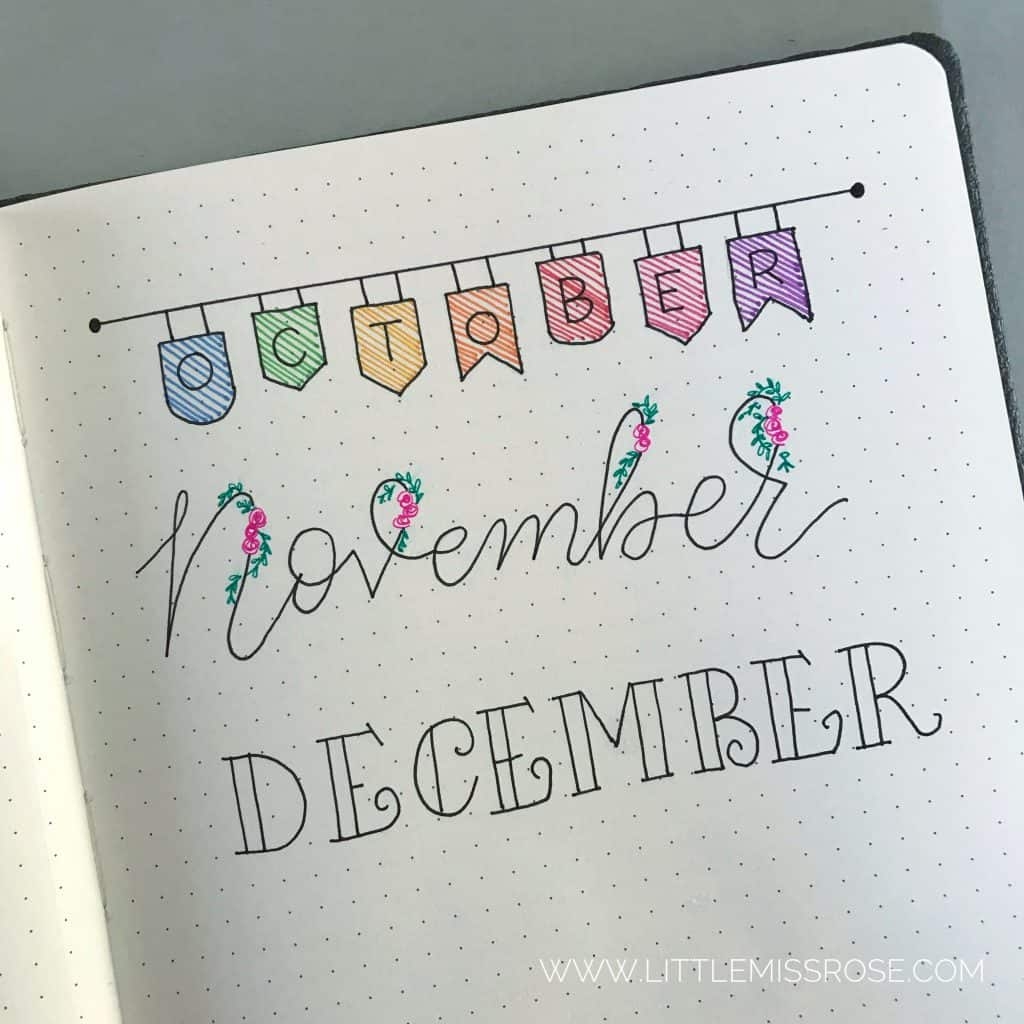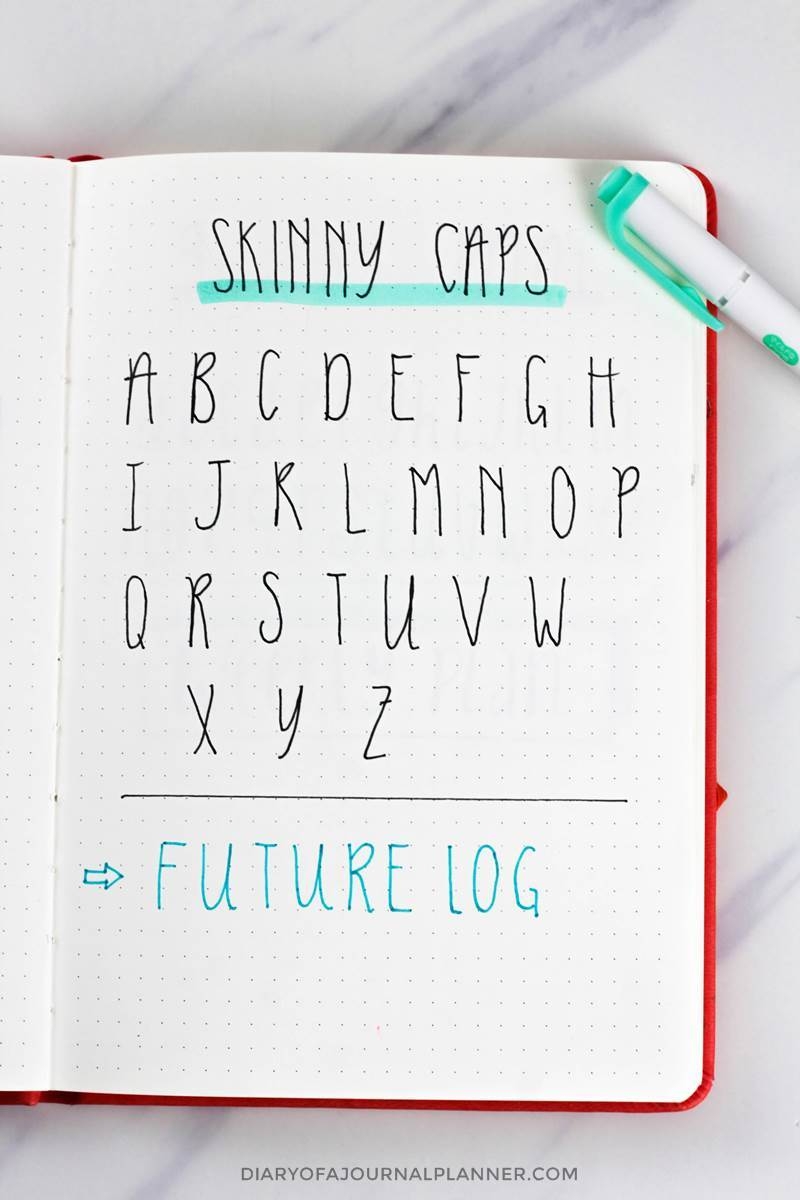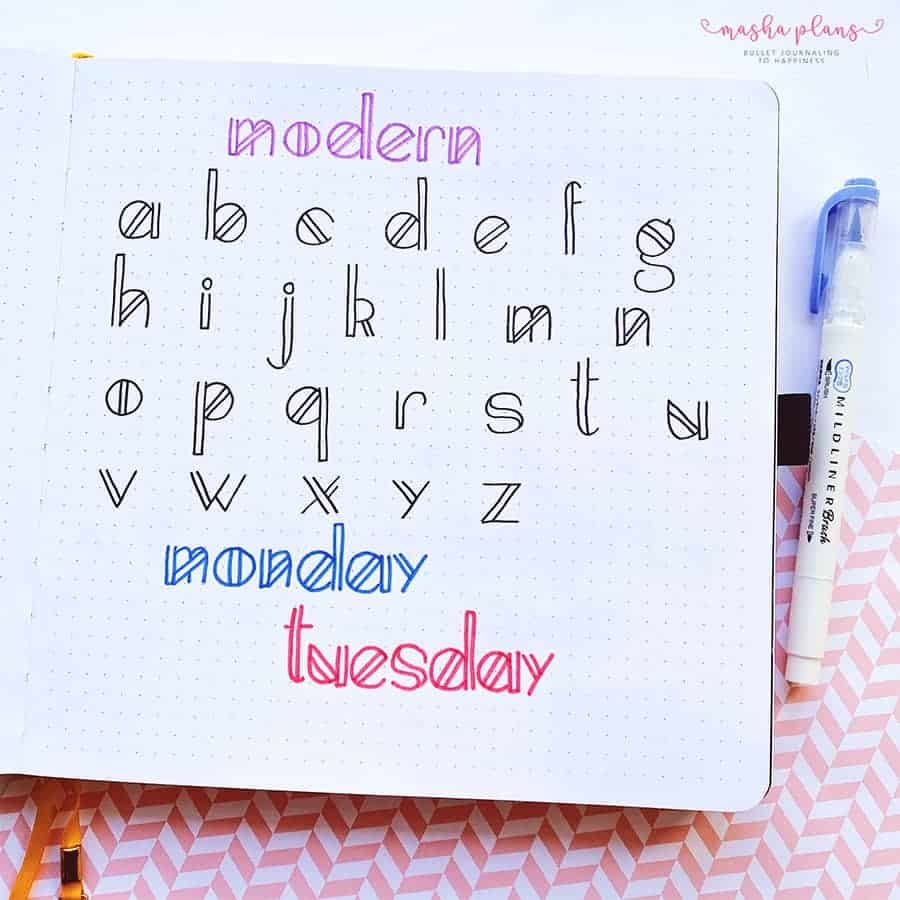
Are you a bullet journal enthusiast looking to add a personal touch to your daily spreads? Choosing the right fonts for your bullet journal can make all the difference in creating a cohesive and visually appealing layout.
From playful and whimsical to elegant and sophisticated, the fonts you select can set the tone for your entire journal. Whether you prefer serif, sans-serif, or script fonts, there are endless options to explore that can complement your unique style and personality.
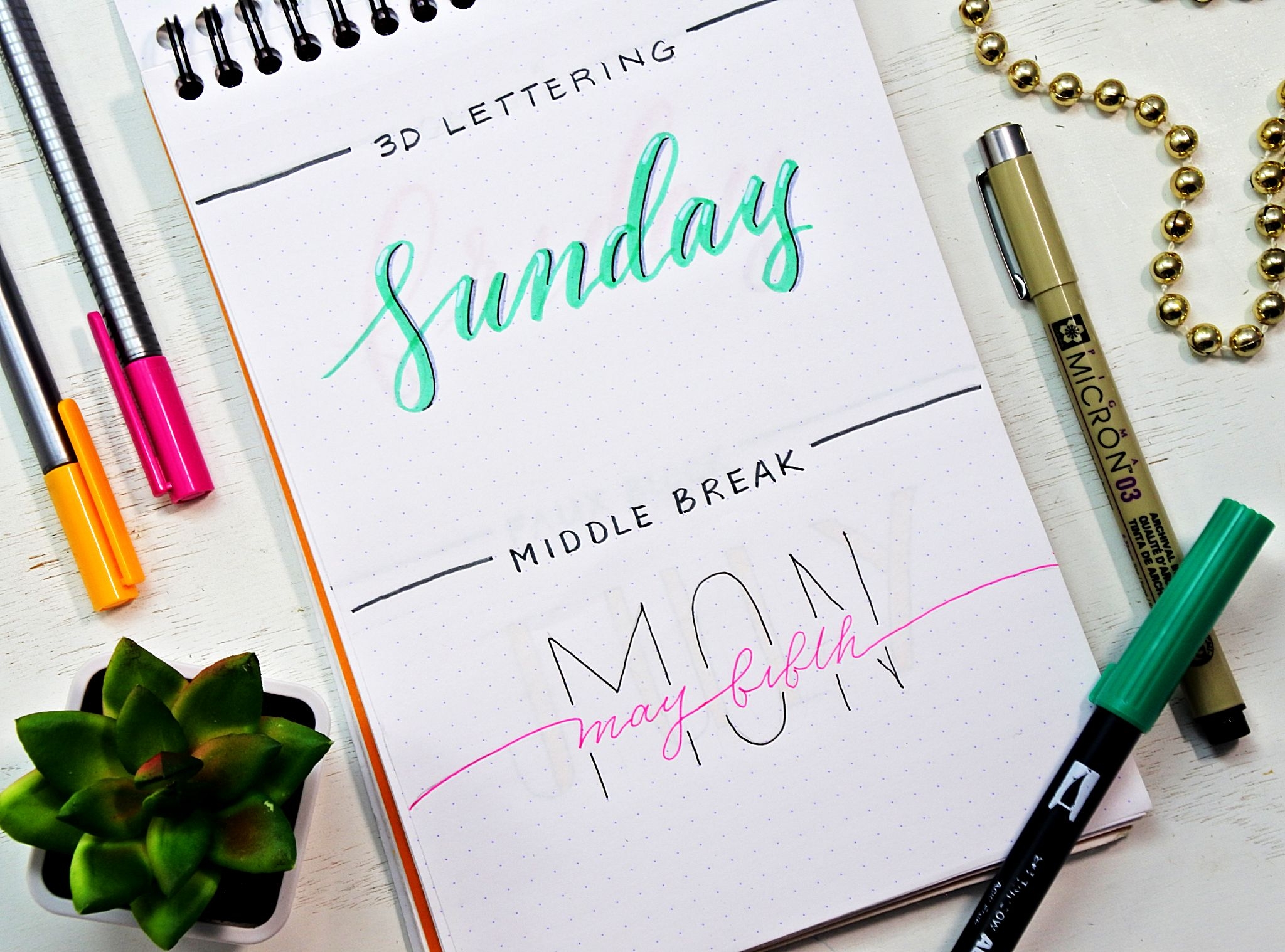
Fonts for Bullet Journal: Finding the Perfect Match
When selecting fonts for your bullet journal, consider the overall theme and vibe you want to convey. Experiment with different styles and sizes to see what resonates with you. Don’t be afraid to mix and match fonts to create visual interest and hierarchy on your pages.
For a cohesive look, stick to a few key fonts throughout your journal, using different weights and styles to differentiate headers, subheadings, and body text. Consistency in font choice can help tie your spreads together and create a polished and professional appearance.
Remember, the goal of your bullet journal is to inspire and motivate you, so choose fonts that speak to you personally. Whether you opt for bold and expressive or minimal and clean, let your creativity shine through in every stroke of the pen.
So, go ahead and have fun experimenting with different fonts in your bullet journal. Embrace the freedom to express yourself creatively and make your journal truly your own. Happy journaling!